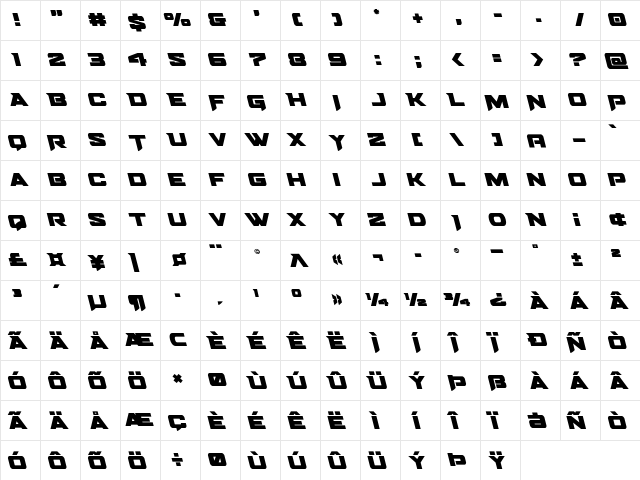
Bomber Escort Leftalic Regular
Design Context for Bomber Escort Leftalic Typeface
Bomber Escort Leftalic offers clean, dependable letterforms without strong stylistic allegiance, making it a practical choice for designers who need flexibility. The slanted form adds forward momentum and visual energy.
Pro Tip: Try Bomber Escort Leftalic for annotation and caption copy alongside an upright companion — the contrast in angle creates a dynamic but ordered typographic system.